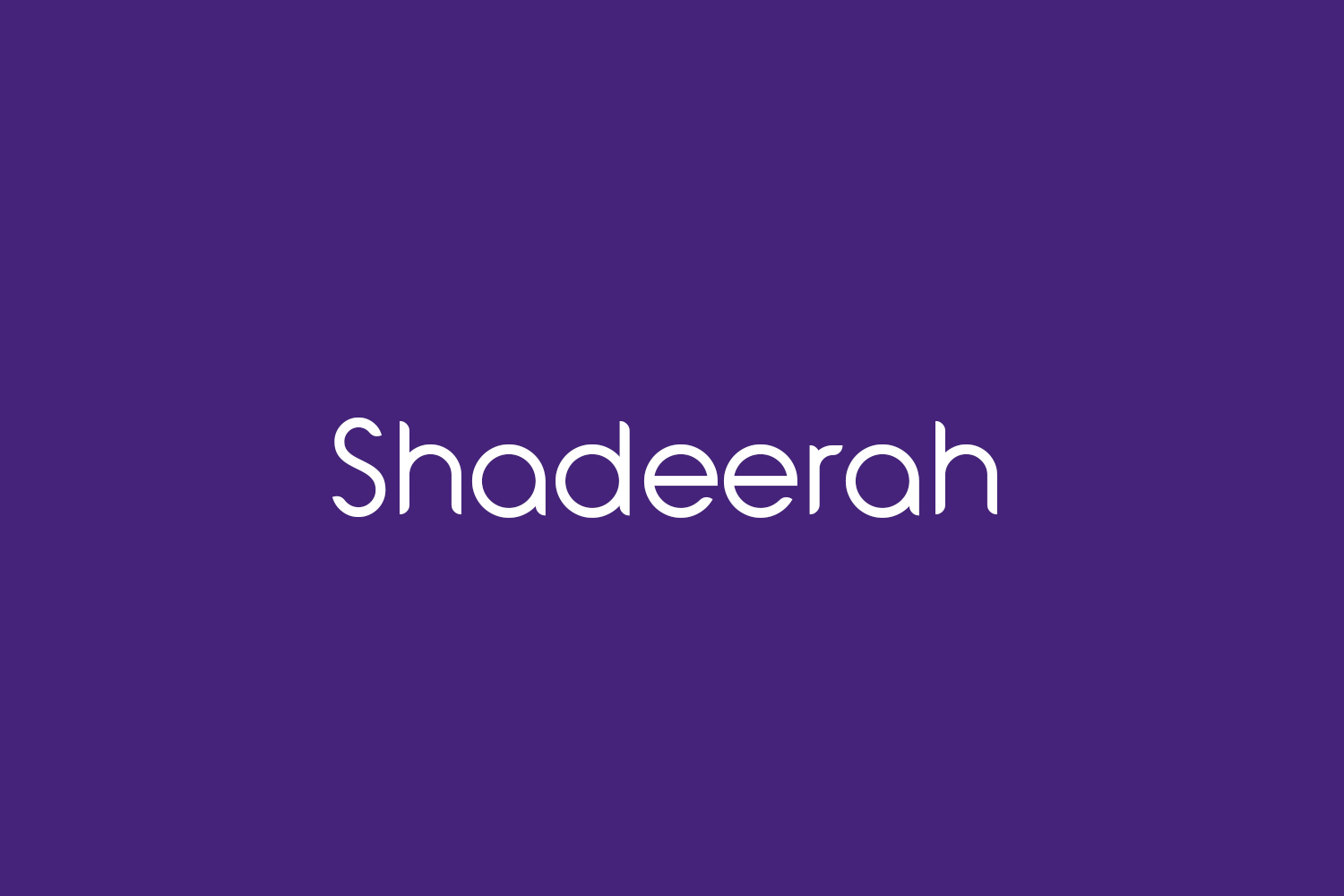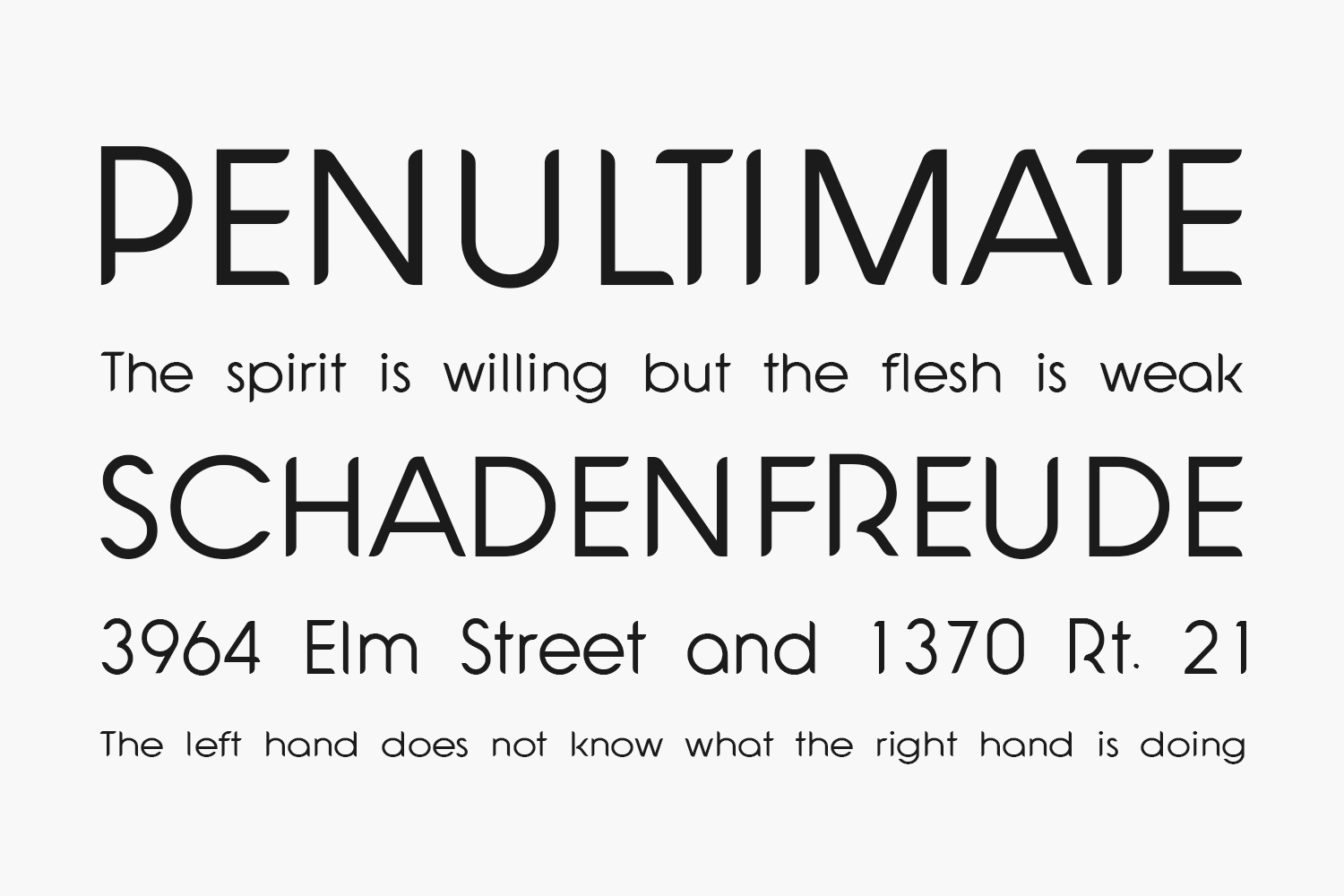
Shadeerah Free Font is a stunning sans serif font with an incredible feel. It will add a unique charm to any design project. It’s free for personal use. For commercial use and licenses get it here.